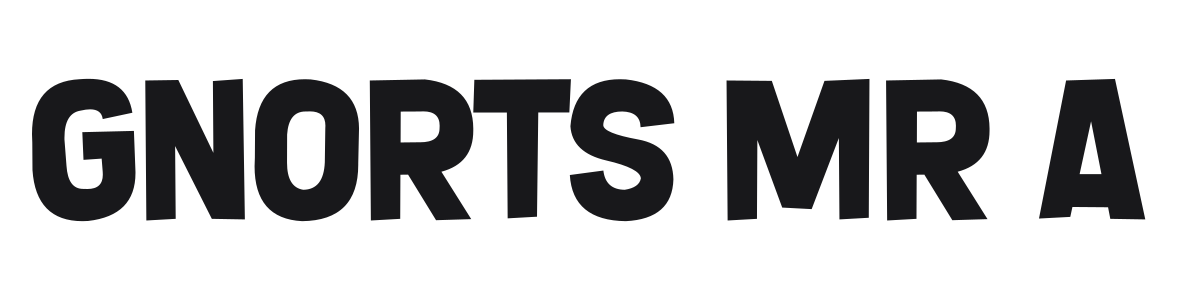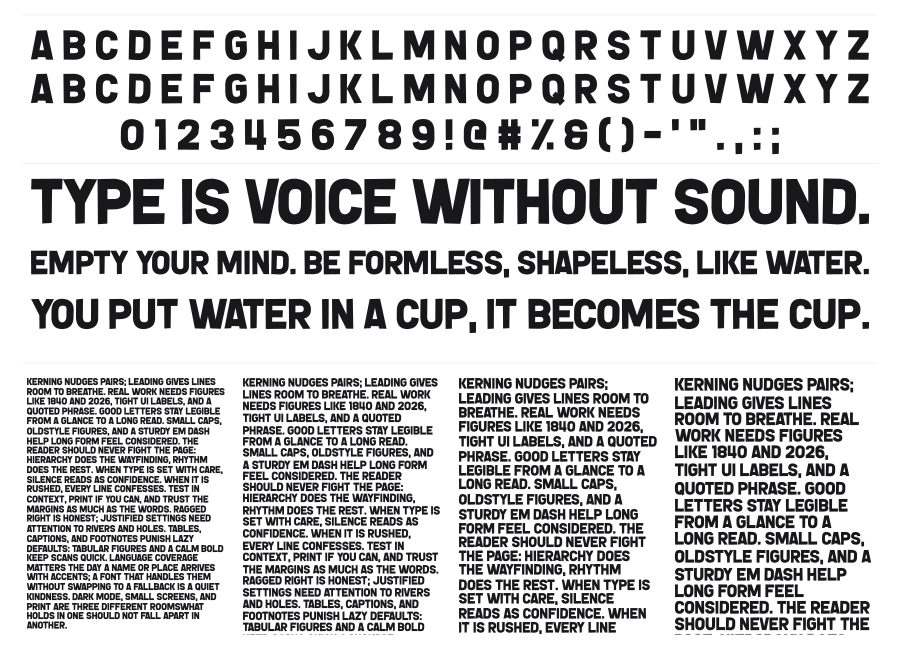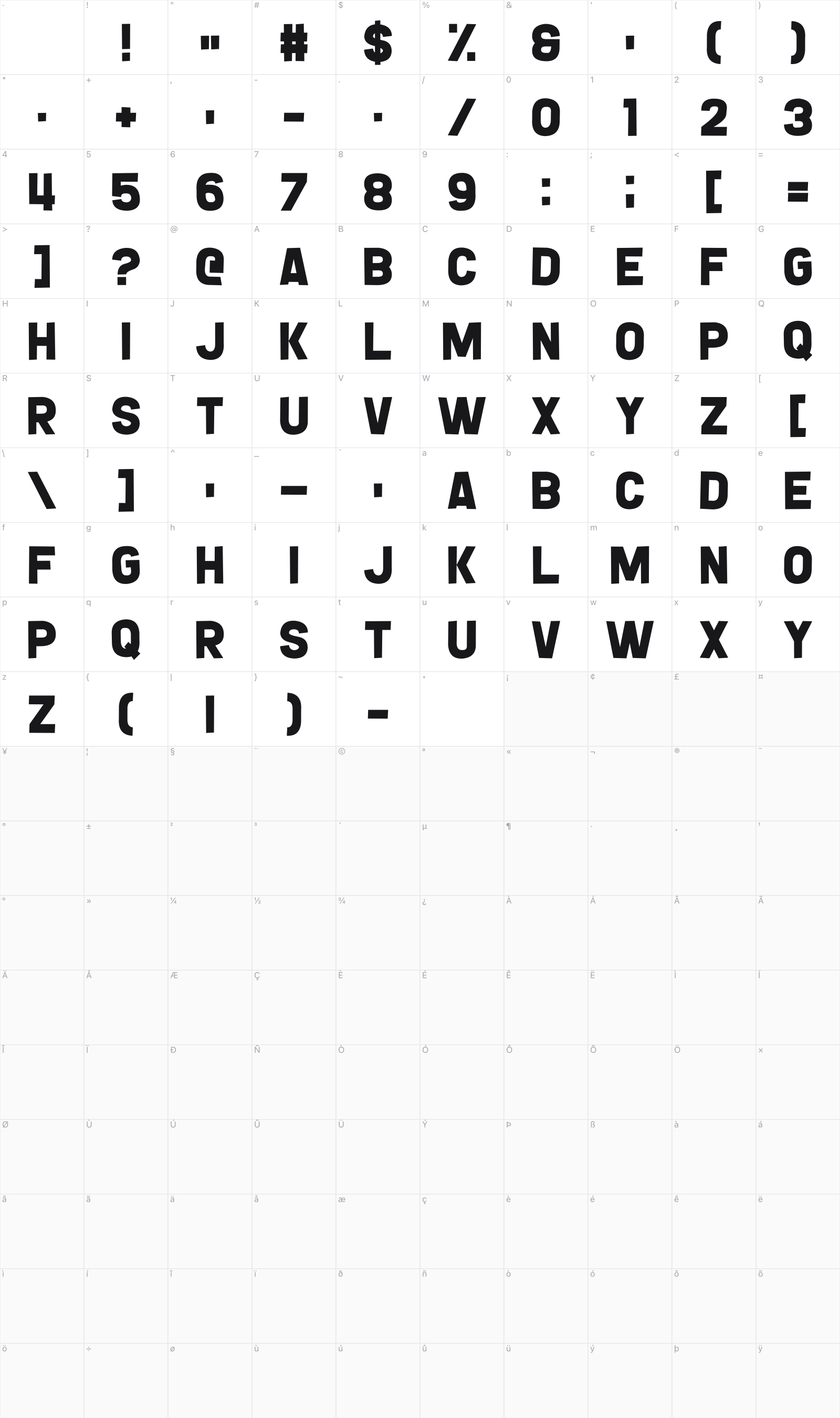
Gnorts Mr A
Gnorts Mr A is a heavy condensed grotesque with a blunt, industrial character and near-zero stroke contrast. Every character pushes weight to the edges without apology, making it a natural fit for sports branding, posters, and high-impact headlines. The name is an anagram of "Mr. Astronaut" — a small nod to its bold, mission-ready personality.